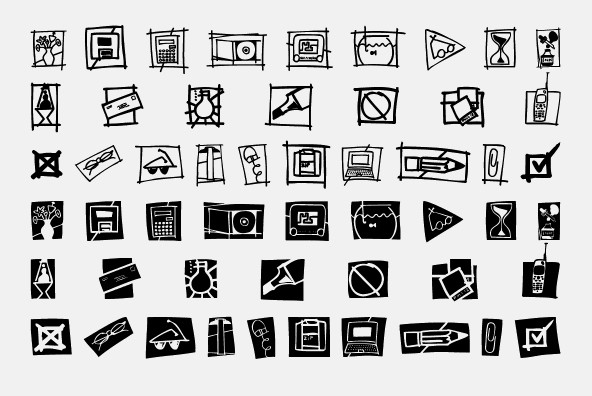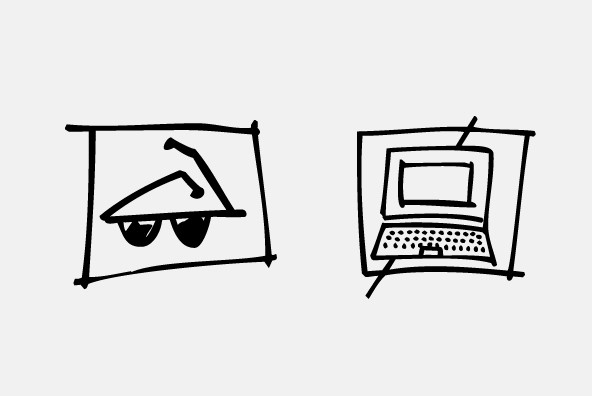
Office Doodles
Fun, little illustrations in line and reverse of what one finds in an office-- or at least my office. See Food Doodles for more matchng little drawings.